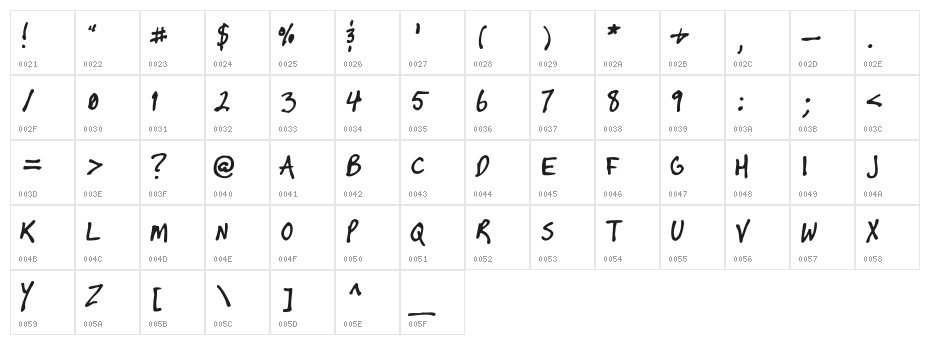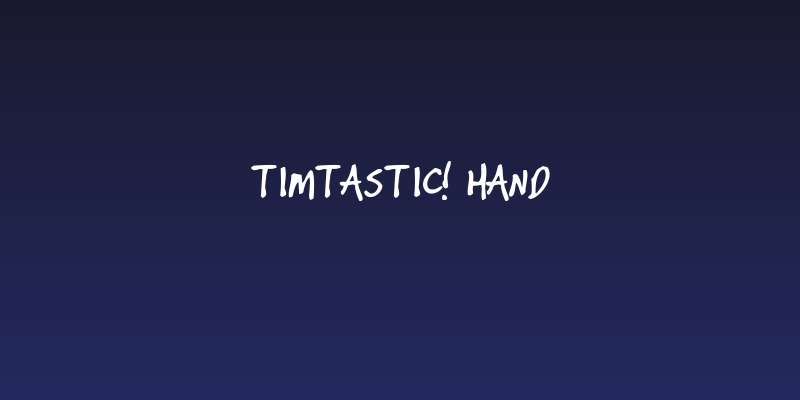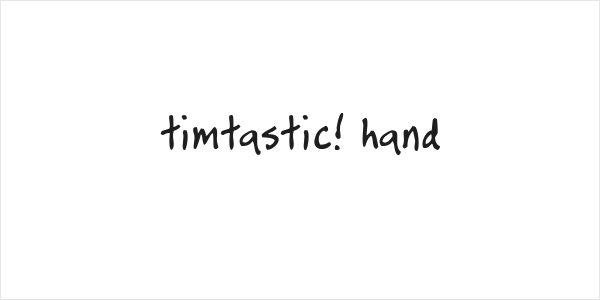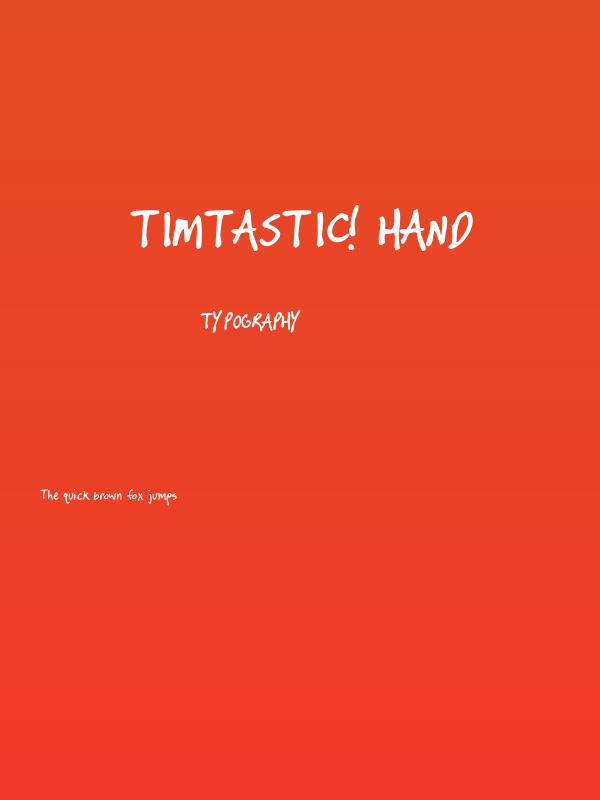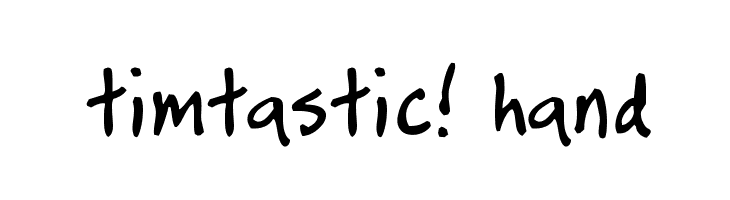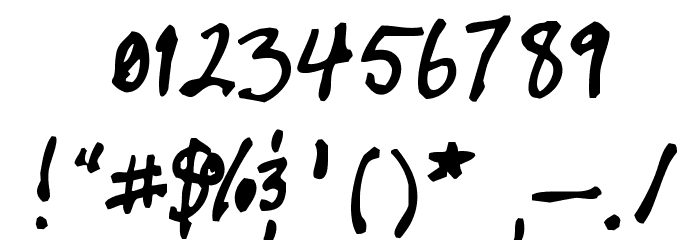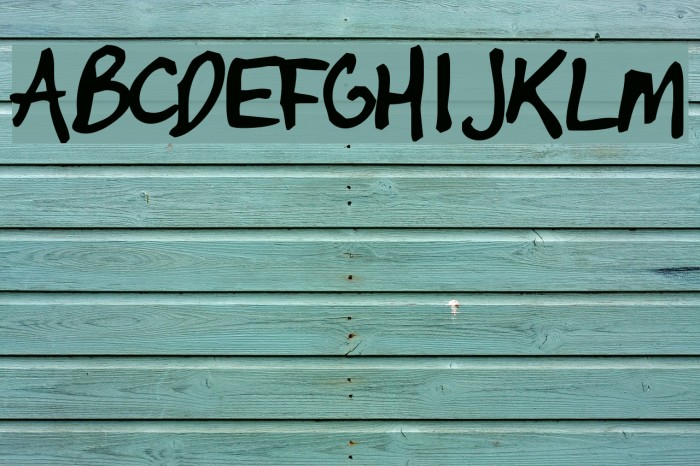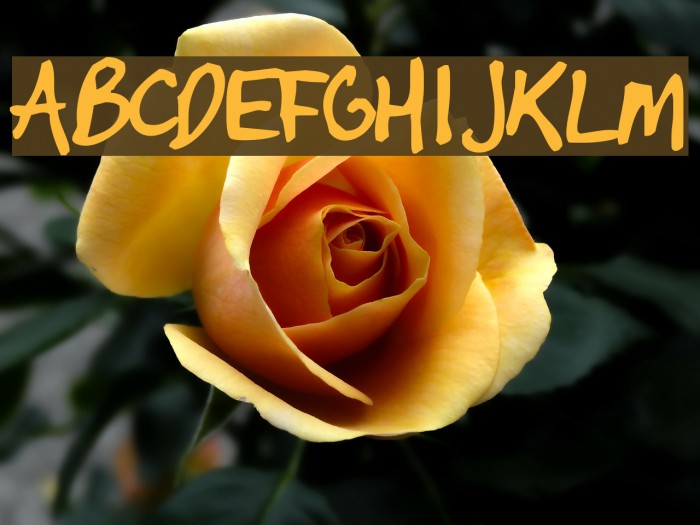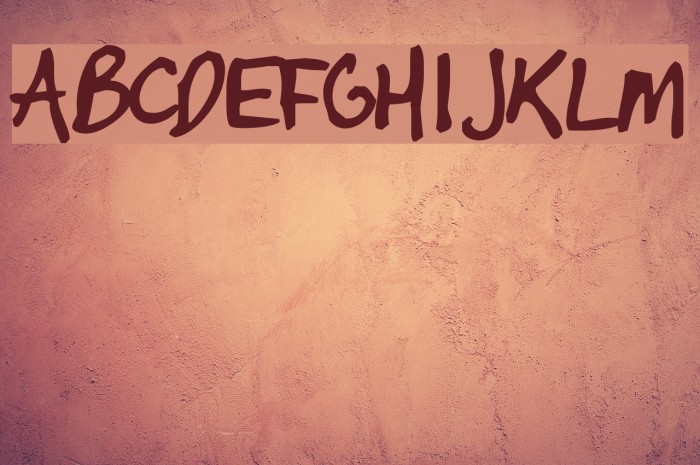
timtastic! hand Font
timtastic! hand Description
This font exudes a playful and casual handwritten style, characterized by its bold and slightly irregular strokes that mimic the natural flow of handwriting. The letters are distinct and easily readable, with a slight slant that adds to the informal and friendly appearance. The uppercase and lowercase letters maintain a consistent style, while the numerals and special characters blend seamlessly, enhancing the font's versatility. Its organic and spontaneous look makes it ideal for projects that require a personal touch or a creative flair.
| Proposed Projects | Ideal for greeting cards, personal branding, creative posters, and informal invitations. |